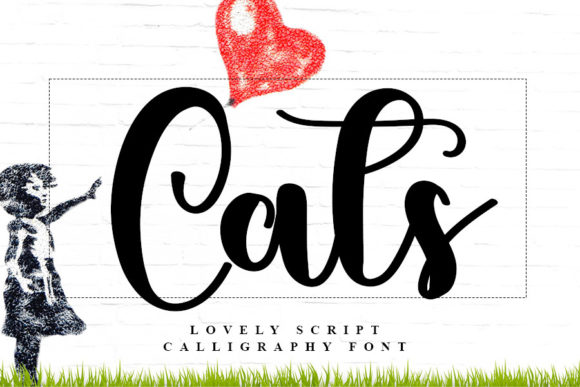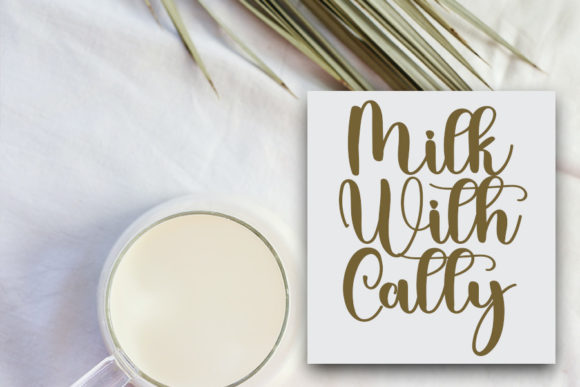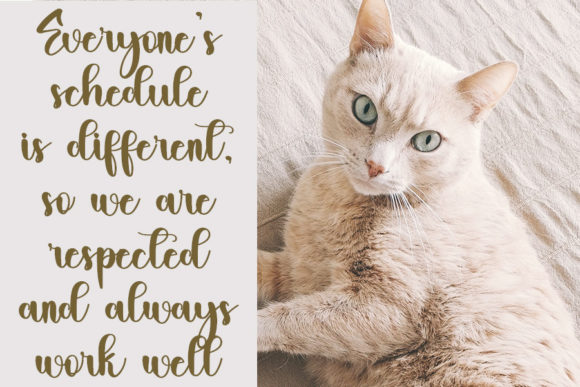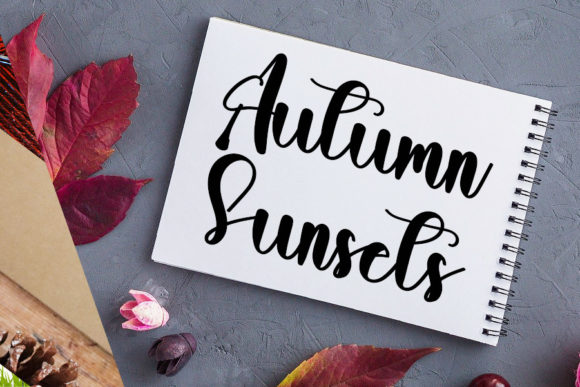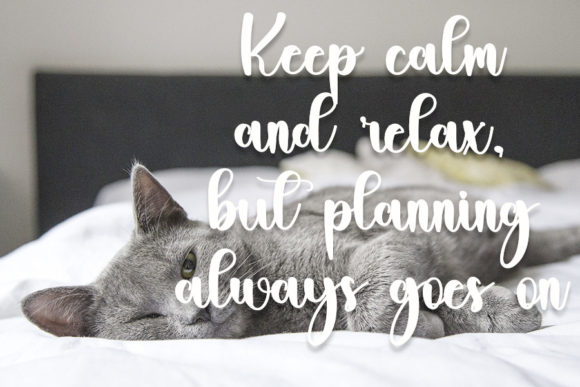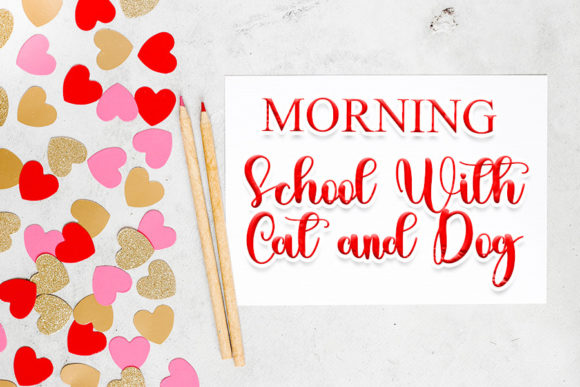
Cats Font
About Cats Font
Cats, a stylish handwritten font with a contemporary flair and impeccable form, is a versatile typeface designed to elevate the beauty of your projects. Inspired by timeless classic calligraphy, this font strikes a harmonious balance between elegance and modernity. Its balanced and varied characters contribute to its unique charm, making it a standout choice for a wide range of design applications.
The contemporary atmosphere of Cats lends itself well to diverse projects, adding a touch of sophistication and style. Whether you’re working on branding, invitations, posters, or social media graphics, Cats brings a modern and elegant flair to your designs. Its handwritten charm sets it apart, creating a distinctive visual identity that resonates with both classic and contemporary sensibilities.
One of the notable features of Cats is its impeccable form, meticulously crafted to ensure a visually appealing and well-balanced typeface. The font’s timeless calligraphic inspiration shines through, giving it a classic touch while still remaining relevant in today’s design landscape. This fusion of classic and contemporary elements makes Cats a versatile and enduring choice for designers seeking a font that stands the test of time.
The versatility of Cats is evident in its ability to adapt to different design contexts. Whether used for formal or casual projects, the font maintains its stylish and sophisticated character. Its varied characters add depth to the typeface, allowing it to be applied to a spectrum of creative endeavors.
In conclusion, Cats is a stylish handwritten font that transcends temporal boundaries, seamlessly blending classic calligraphic influences with a contemporary aesthetic. Its impeccable form and varied characters make it an excellent choice for designers looking to enhance the visual appeal of their projects. Whether gracing branding materials, invitations, posters, or social media graphics, Cats is a font that brings a timeless and elegant charm to every creative venture.